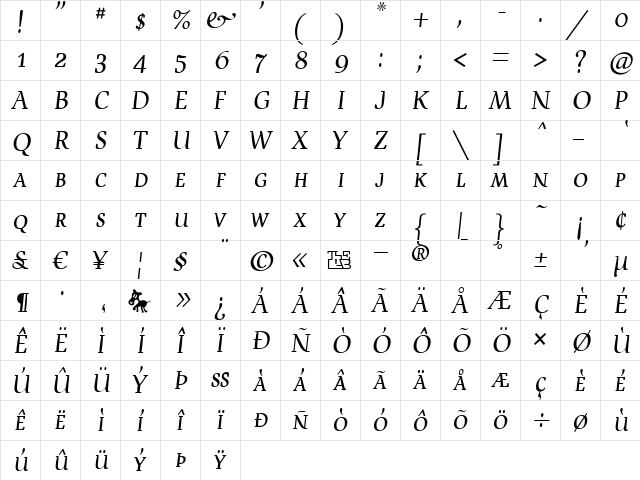
Devroye SCOSF Regular Font Preview
Devroye SCOSF Regular
Devroye SCOSF Regular Font Details
Design Context for Devroye SCOSF Typeface
Devroye SCOSF is a composed and adaptable typeface that performs quietly and consistently across a wide range of design contexts.